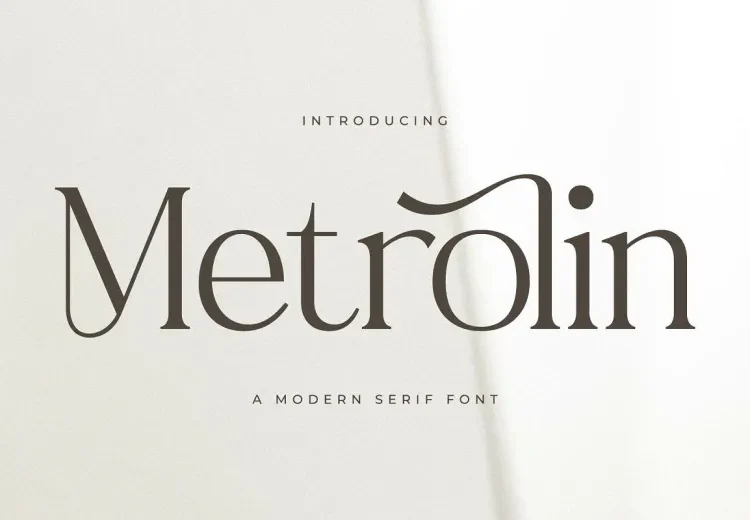
Metrolin Font
Metrolin is a contemporary classical serif typeface that combines timeless elegance with a modern edge. Its distinctive style is perfect for a variety of sophisticated design projects, including creating classy logos, movie and book titles, fashion brand clothing designs, magazines, and striking quotes. Metrolin adds a touch of flair and refinement, making it an excellent choice for enhancing movie posters and book covers with a touch of grandeur.
With its refined aesthetic and versatile design, Metrolin helps bring a sense of sophistication and distinction to any project. Whether you’re crafting high-end branding materials or designing eye-catching editorial content, this typeface ensures your work stands out with a blend of classical charm and modern appeal.